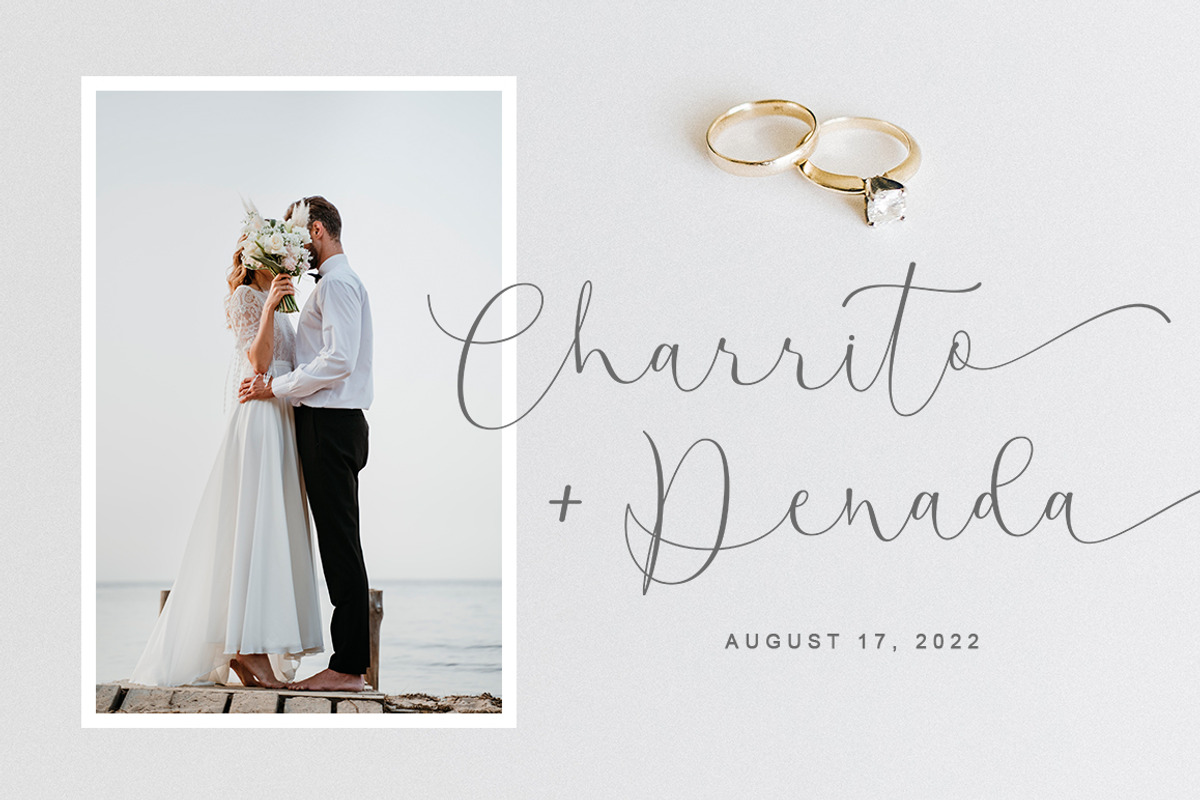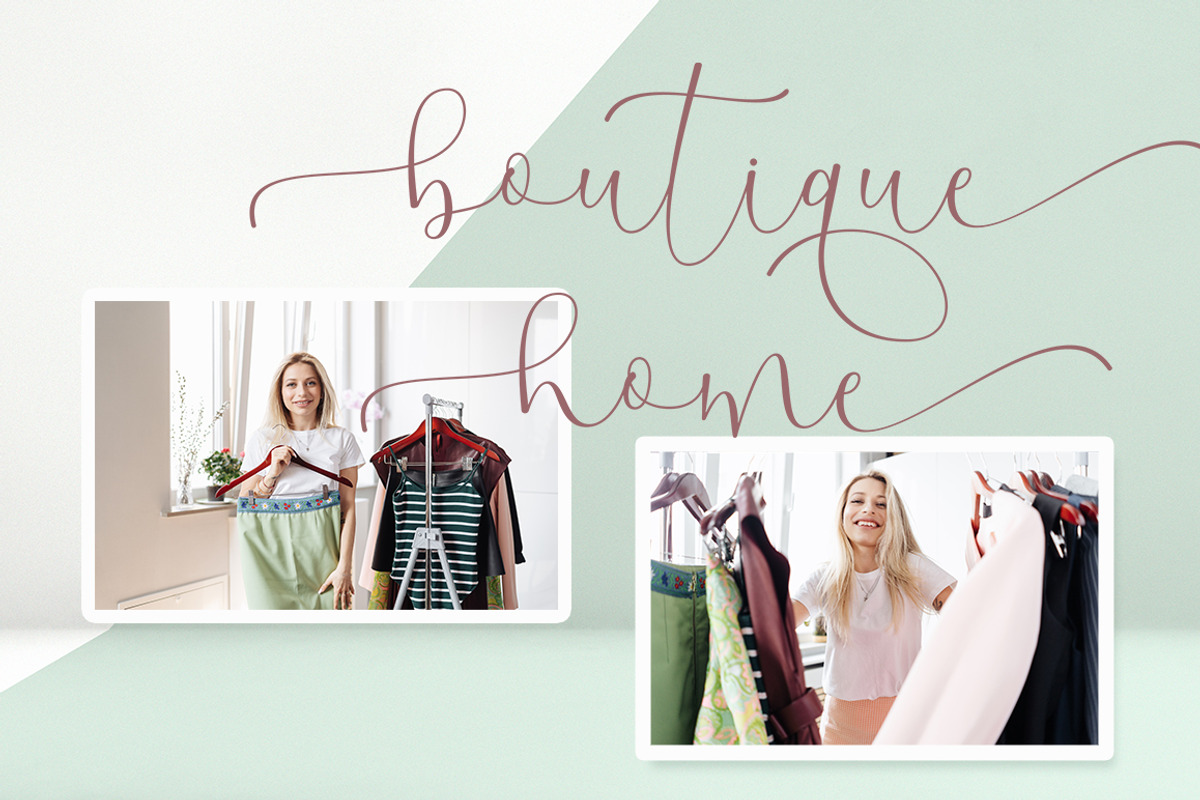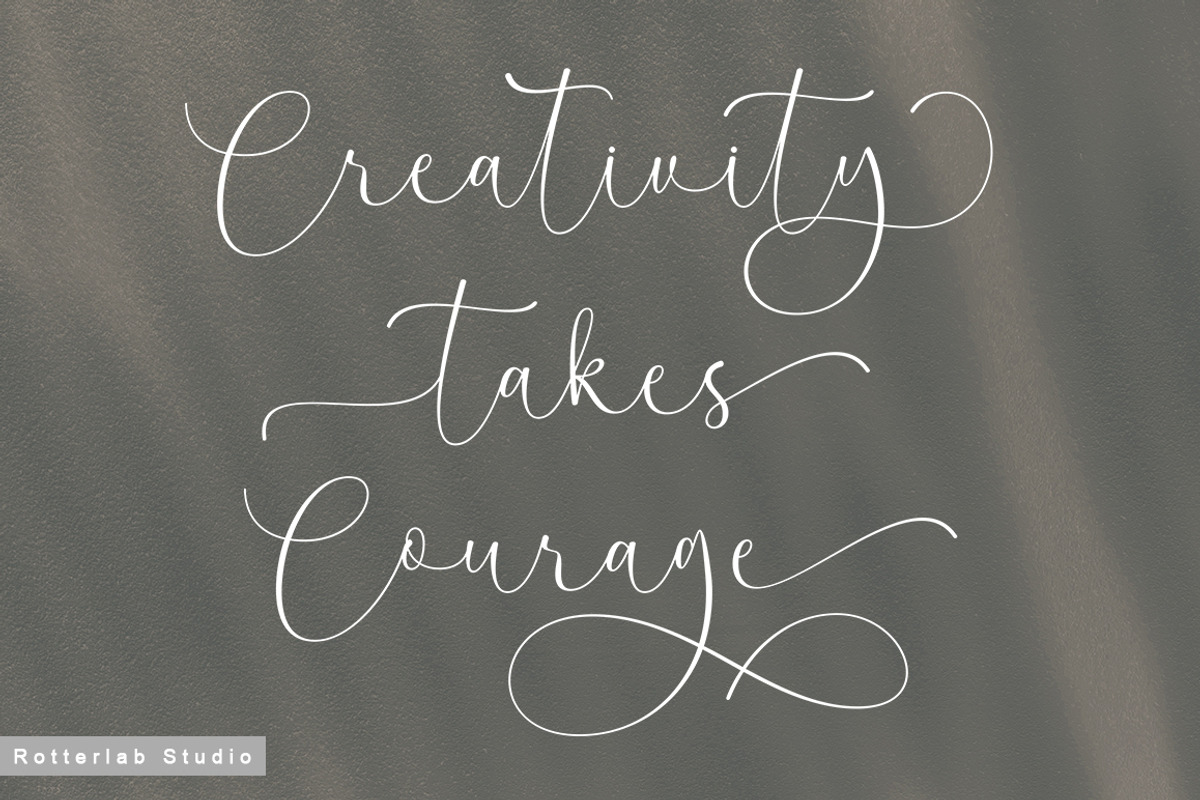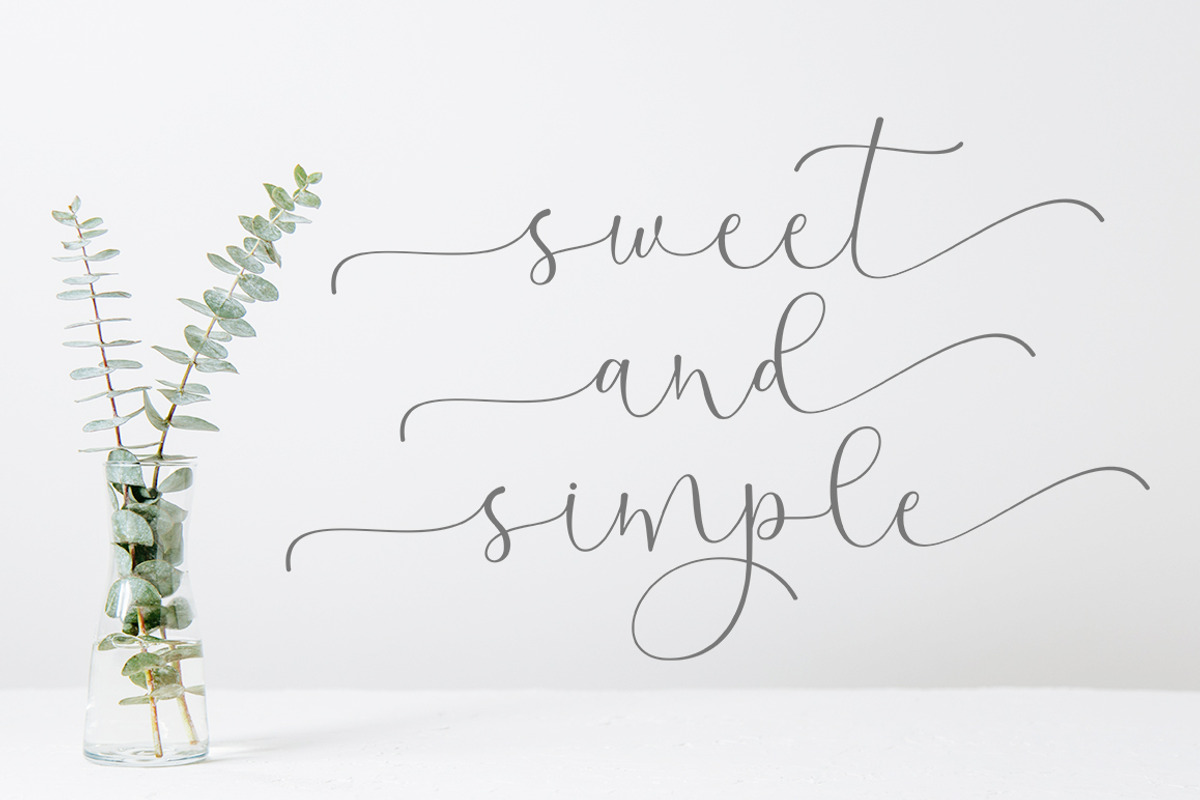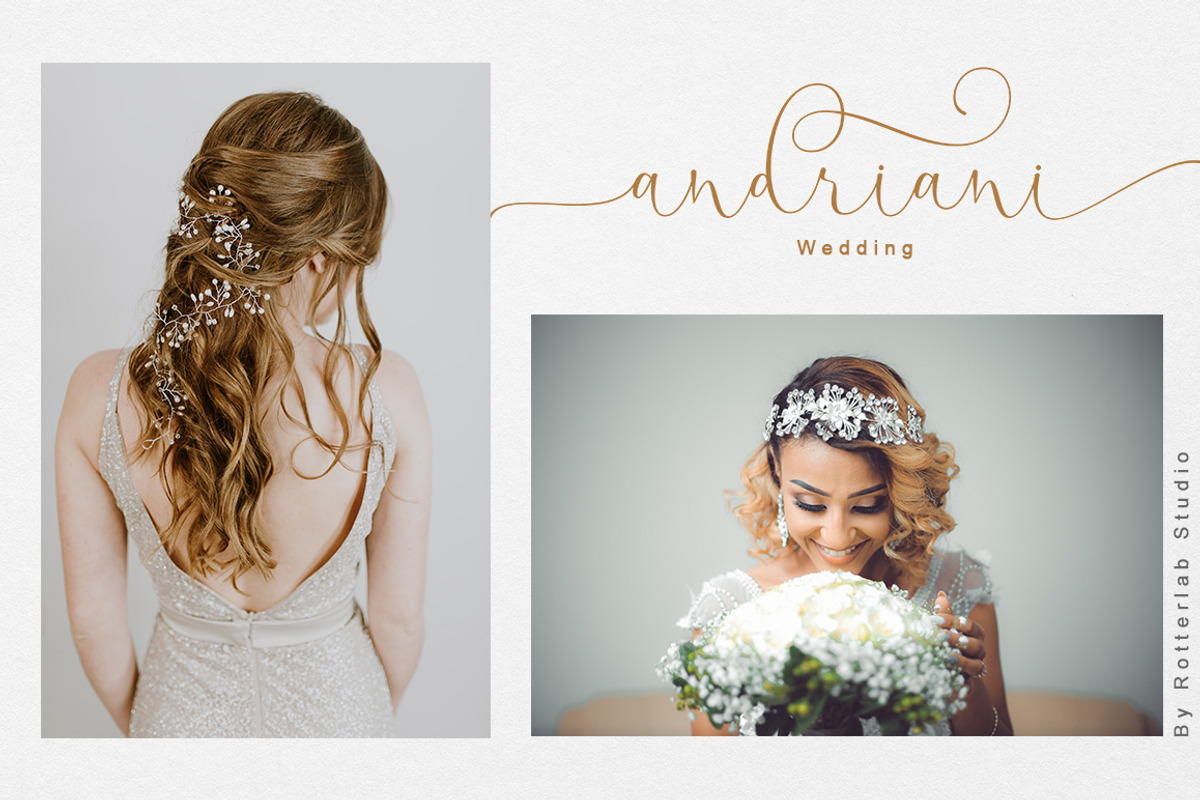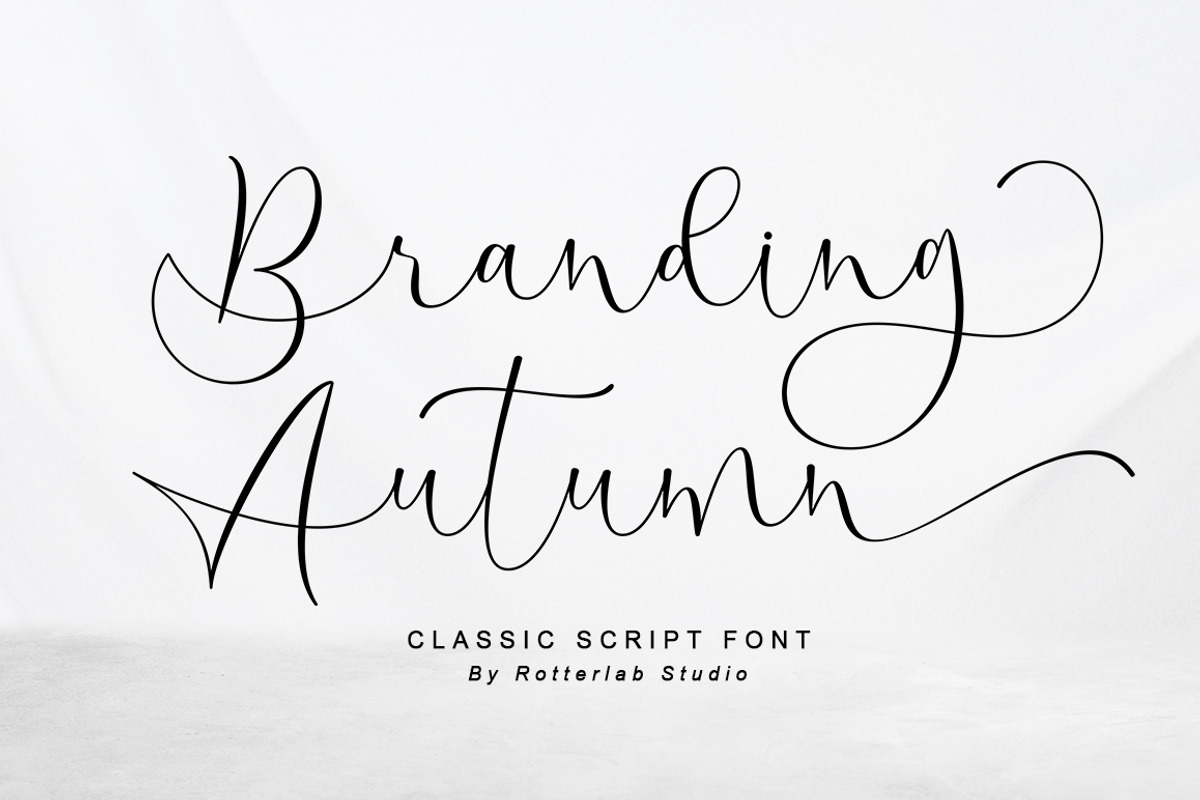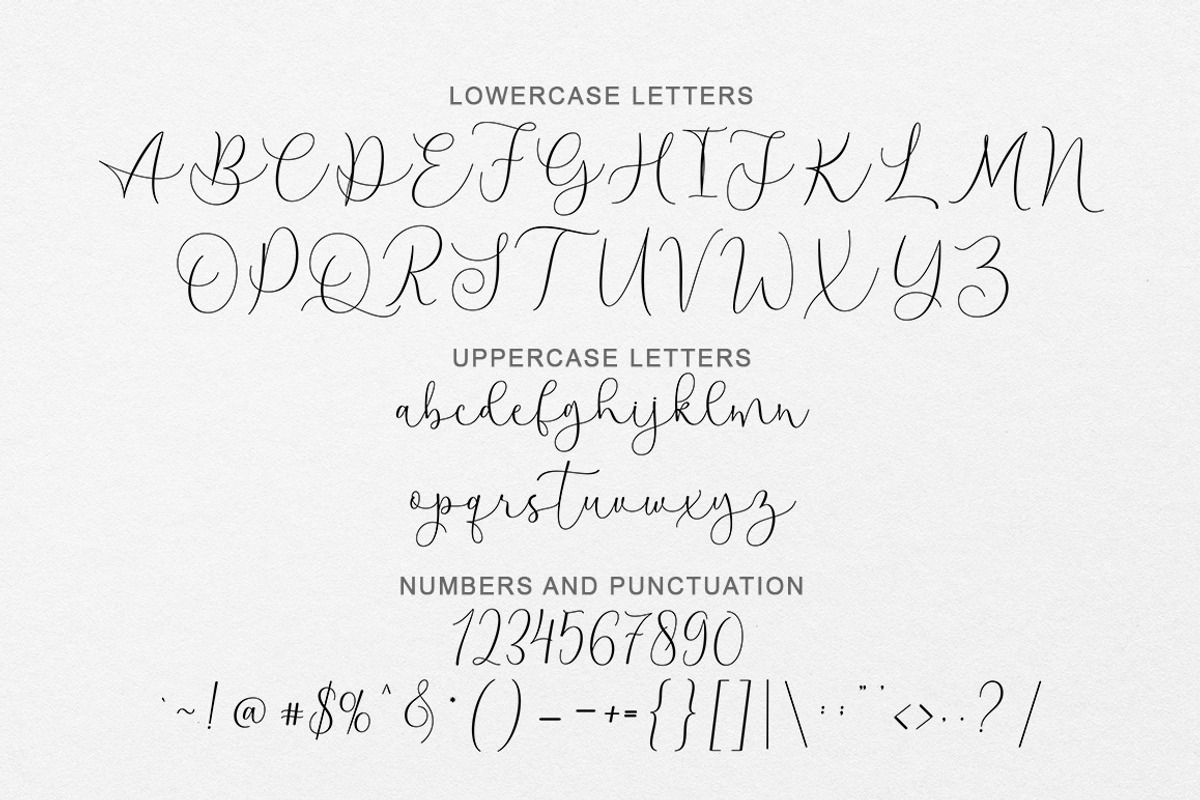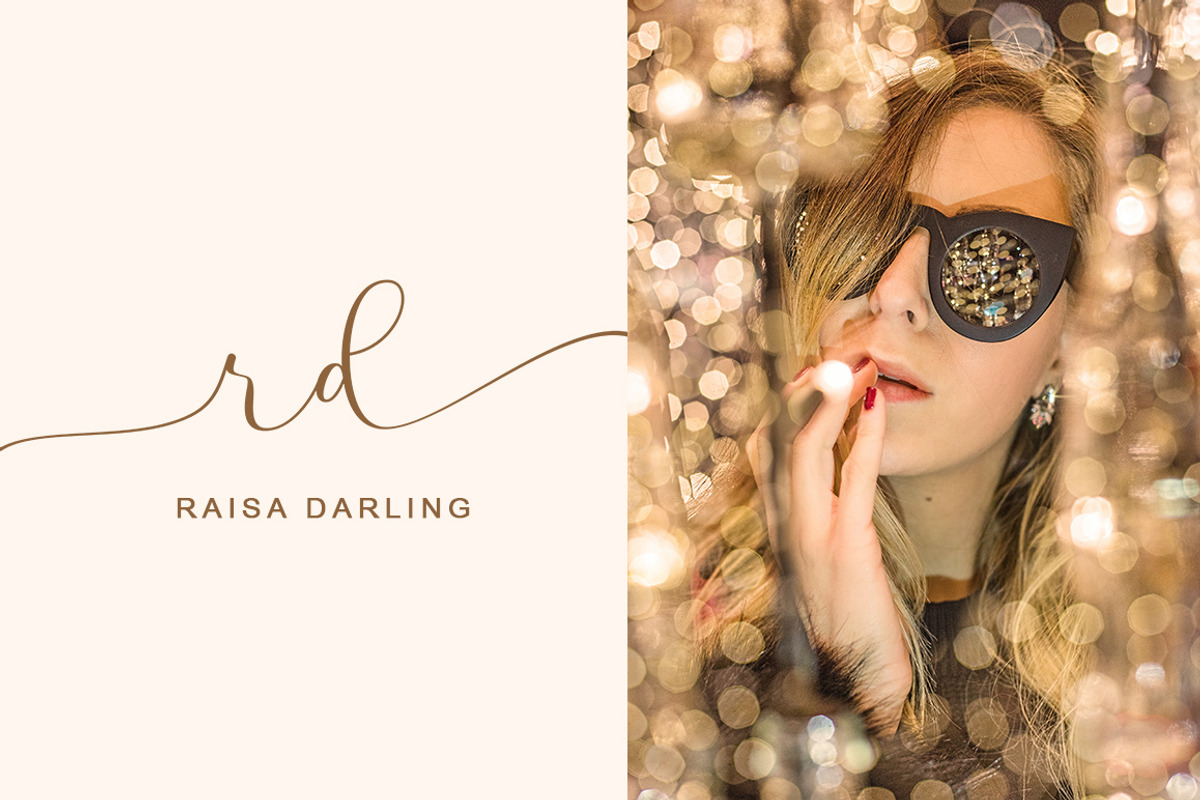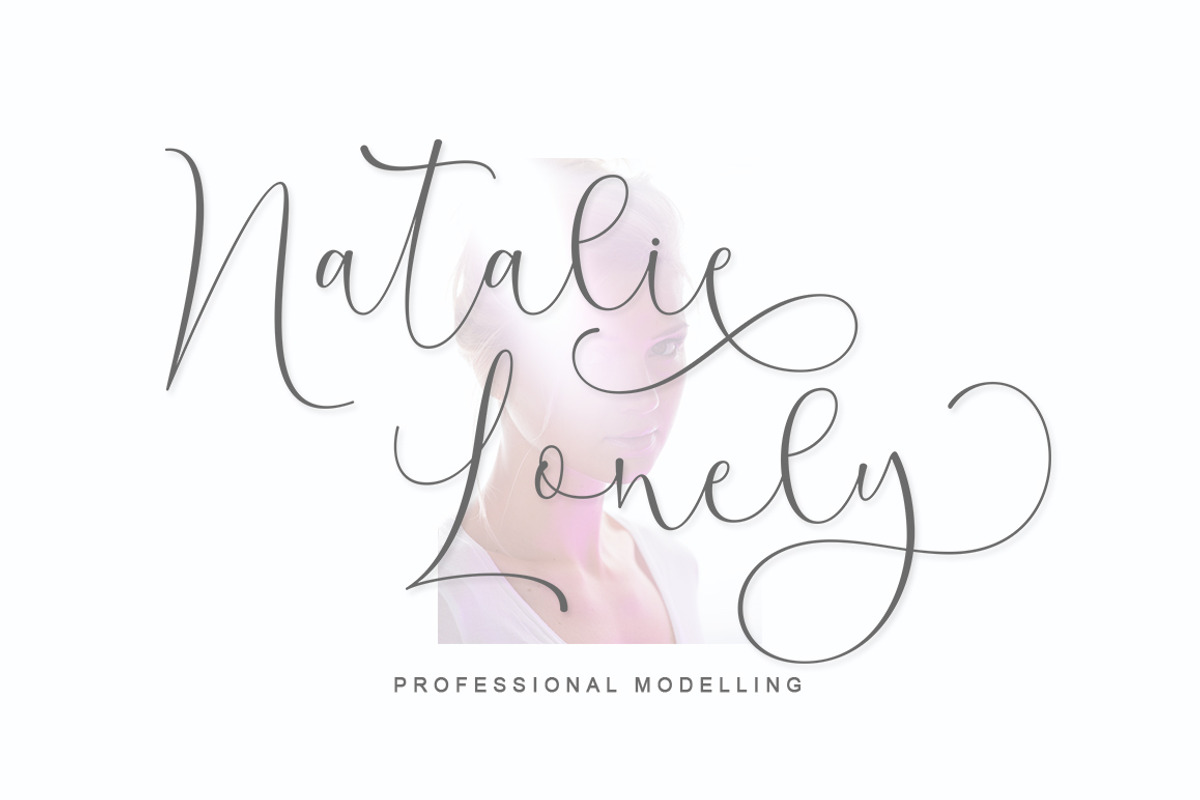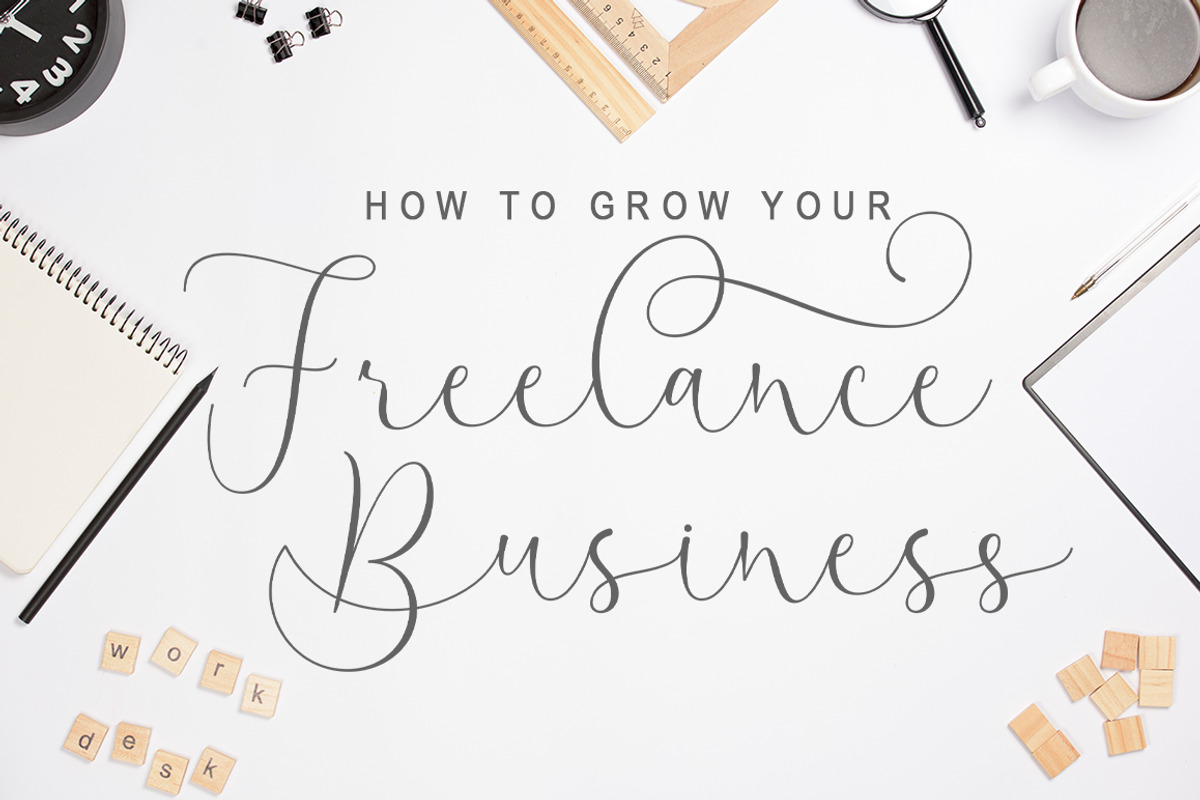
Branding Autumn
Branding Autumn, a textured modern calligraphy font loaded with alternative swashes and binders for a handwritten feel. Crafted with care, Branding Autumn is perfect for wedding invitations and wedding stationery, feminine logos, personal branding, websites, blogs and more!